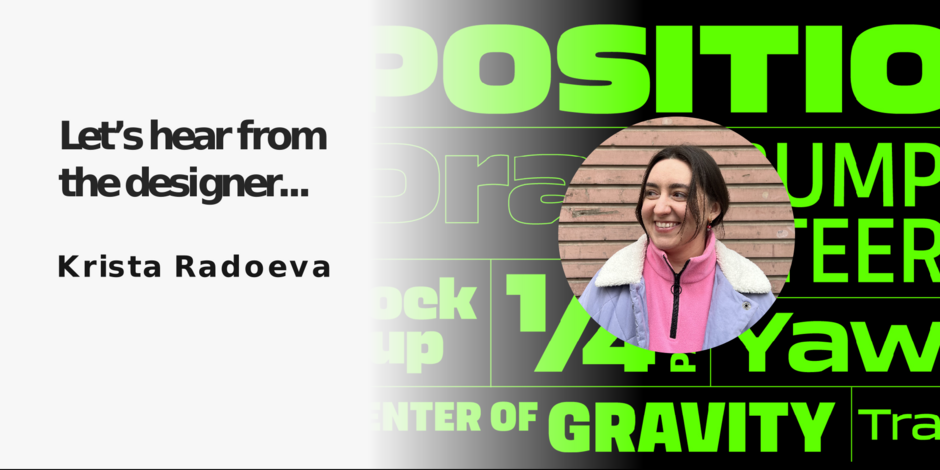
#07 Aeroko by Monotype
Q1: Where did the idea for the typeface come from? Did you set out to address a specific use or suite of the application? Was this a design you’d had in mind for a while?
Ans: Before Aeroko I had worked on a few elegant serif fonts, so I really wanted to switch and do something in the opposite direction: squarish and mechanical. We set up a clear brief: to design a typeface for the sports genre. The biggest challenge was to define what that actually means. What are the shapes that express high energy, power, agility, strength, flexibility? I started by sketching on paper and played around with the balance between squareness and roundness. I wanted to create something solid and boxy, but also expressive, with a human touch.
Q2: What should graphic communicators know about the typeface, or how will the family of fonts help them create better designs?
Ans: Aeroko’s underlining design principle is to fill up space as much as possible :) The x-height is extremely exaggerated and the extenders are short, so that words and lines have the same boxy appearance as each letterform. Put that together with the full range of weights and widths, you have a powerful and vivid type system that can be used in many ways.
Aeroko looks high-tech and mechanical at a first glance. But with a closer look you will notice all the little quirks, like the sharp cuts and the softly curved terminals, that make the typeface so distinctive.